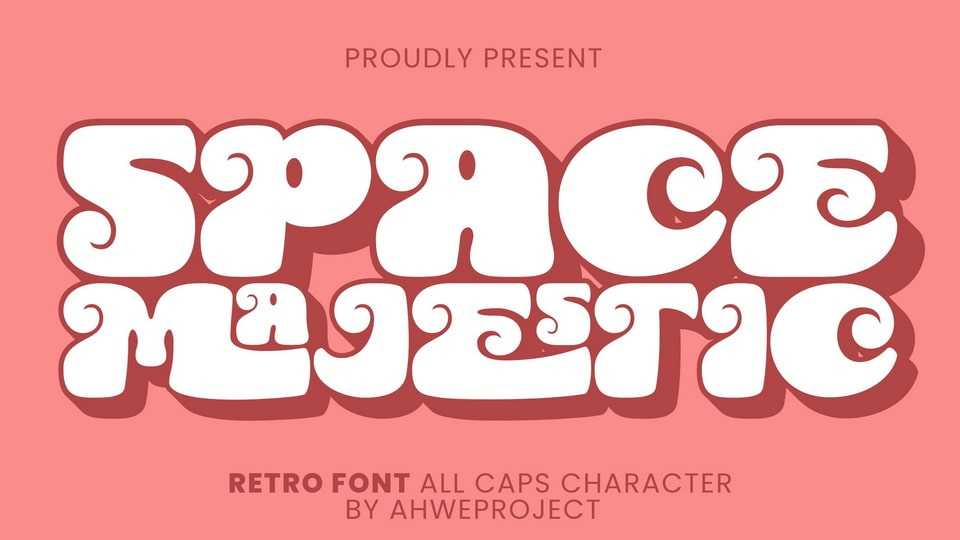
Space Majestic Font › Fontesk – Download Grátis
Download Space Majestic font, a retro bold serif display font. Use it to add that special retro touch to any design idea you can think of!